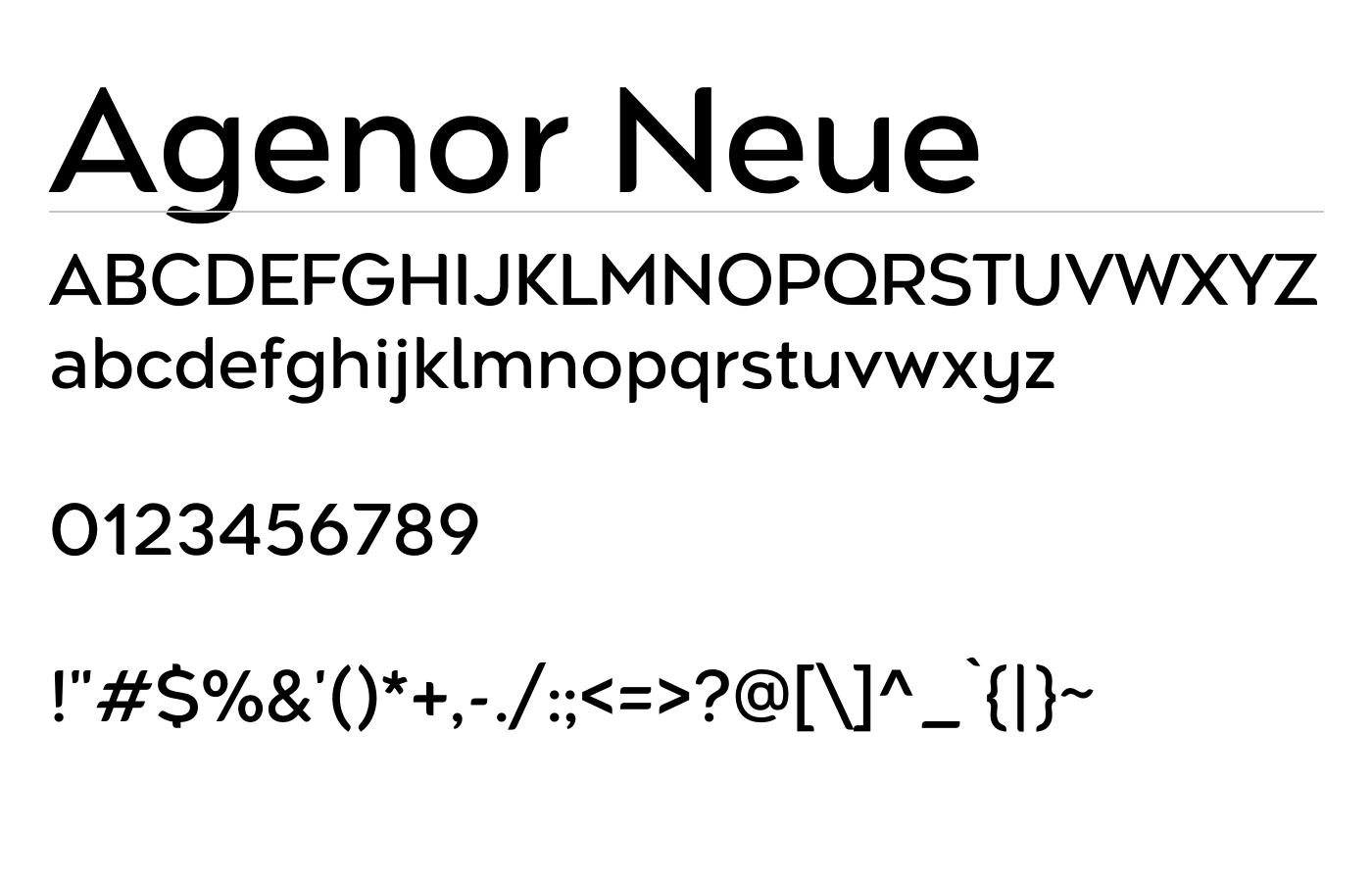
Agenor Neue is a clean and modern sans serif font characterized by its balanced weight and slightly condensed proportions, making it highly readable. With distinct geometric shapes and a medium x-height, it conveys a friendly yet professional tone, ideal for contemporary branding, editorial design, and digital use. Its clarity and simplicity allow it to work well in both headlines and body text, offering versatility across various design projects.
Agenor Neue Font
About Agenor Neue Font
| Font family | Agenor Neue Font |
| Designer | Deepak Singh Dogra |